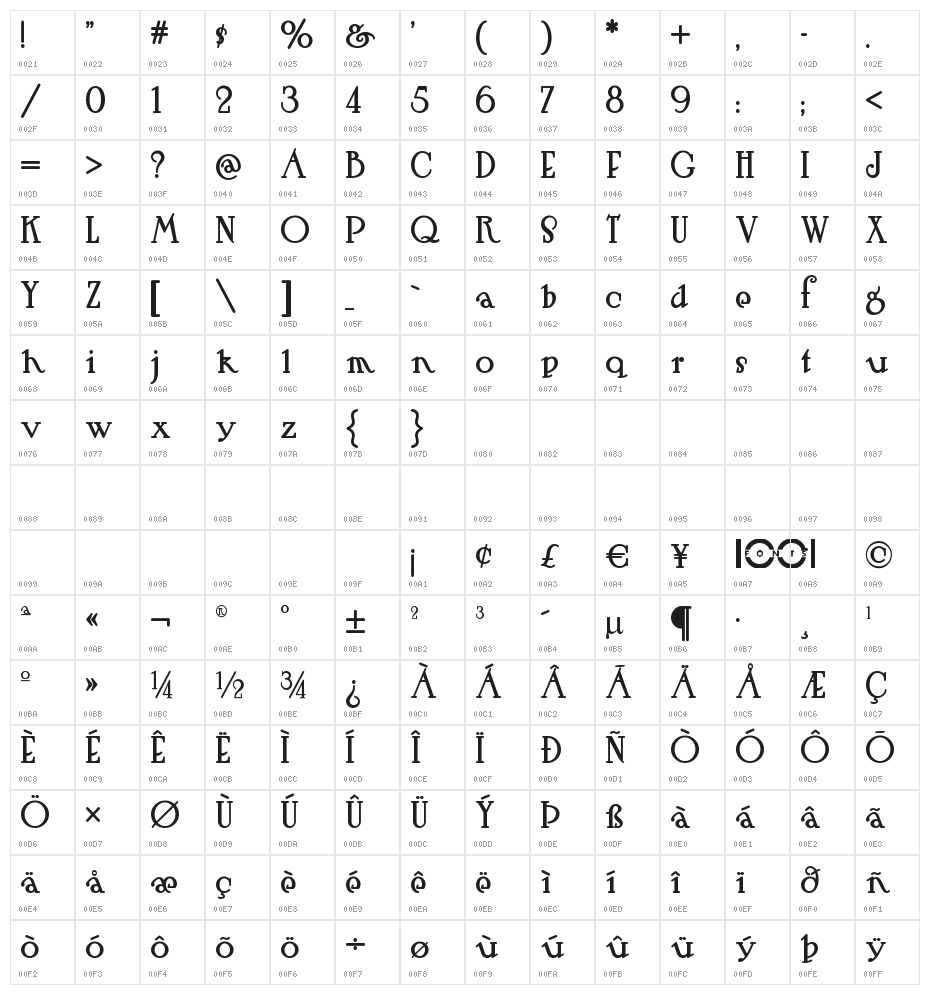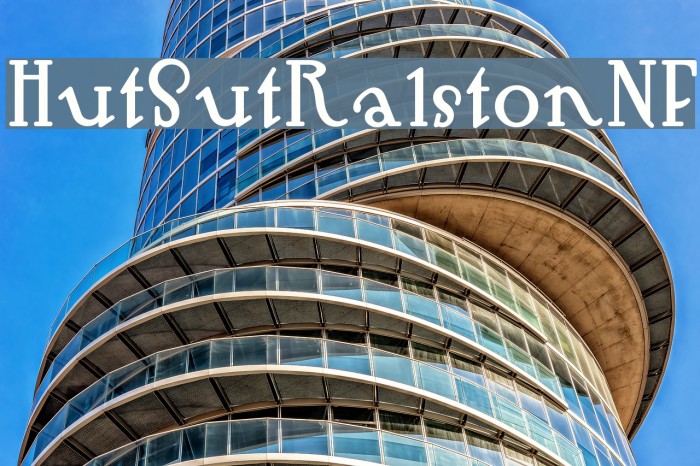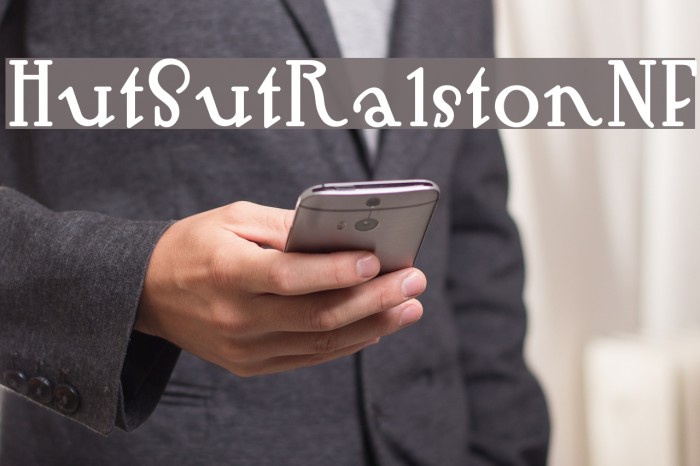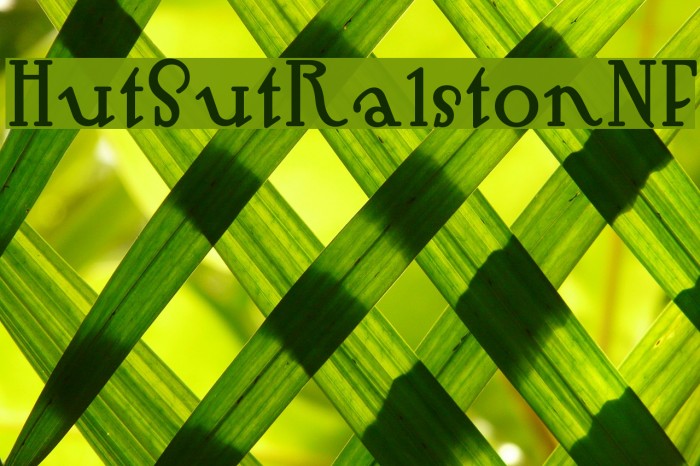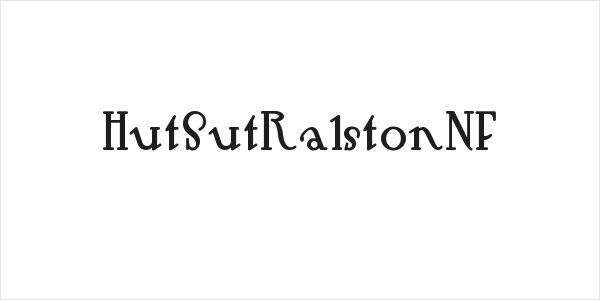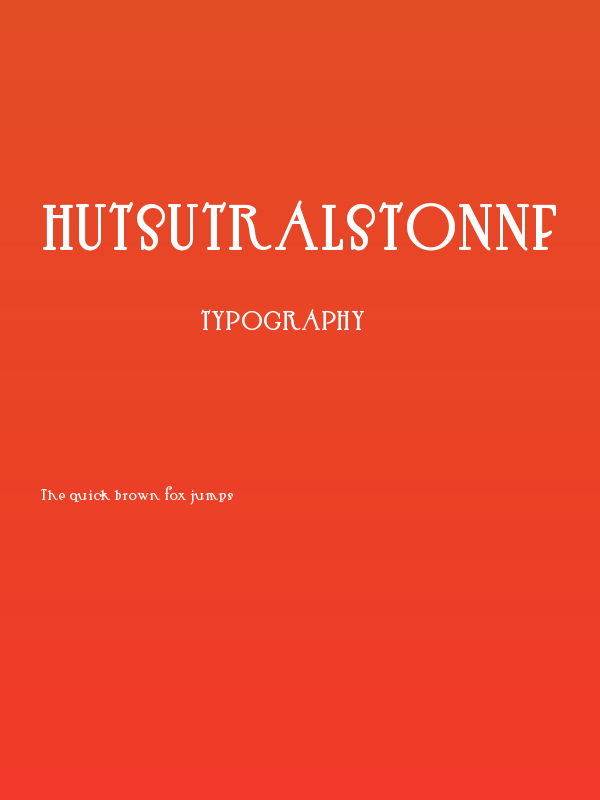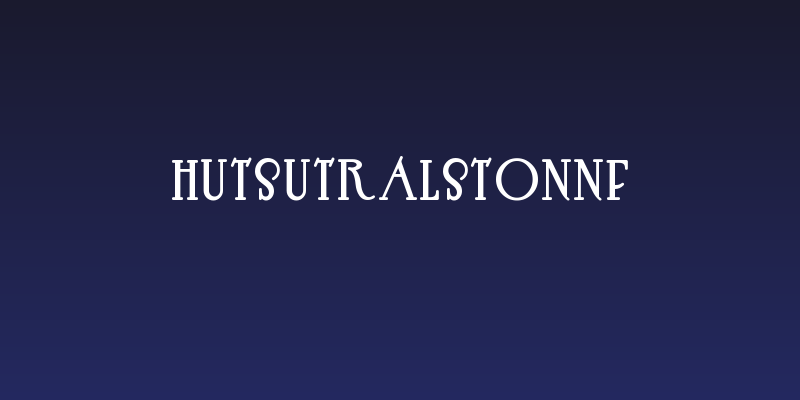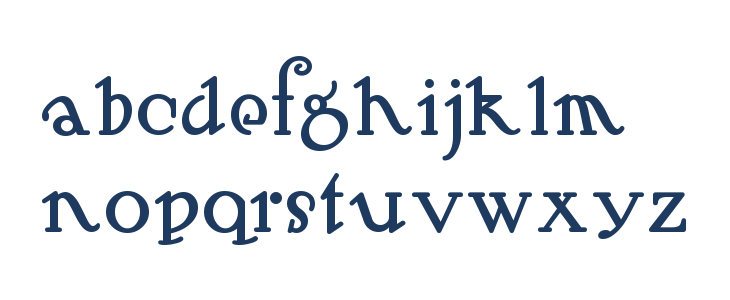
HutSutRalstonNF Font
HutSutRalstonNF Description
This font features a whimsical and playful design with a unique blend of classic and modern elements. The uppercase letters exhibit a slight flourish, particularly noticeable in characters like 'R' and 'S', adding a touch of elegance. The lowercase letters maintain a consistent style, with some characters like 'g' and 'y' having distinctive loops that enhance the font's charm. The numerals are bold and clear, ensuring readability, while the special characters are crafted with the same playful flair. Overall, the font balances readability with decorative elements, making it suitable for creative and artistic projects.
Overall StylePlayful, Artistic
Use CaseHeadlines, Logos, Creative projects
Proposed ProjectsIdeal for invitations, greeting cards, children's books, and creative branding projects.